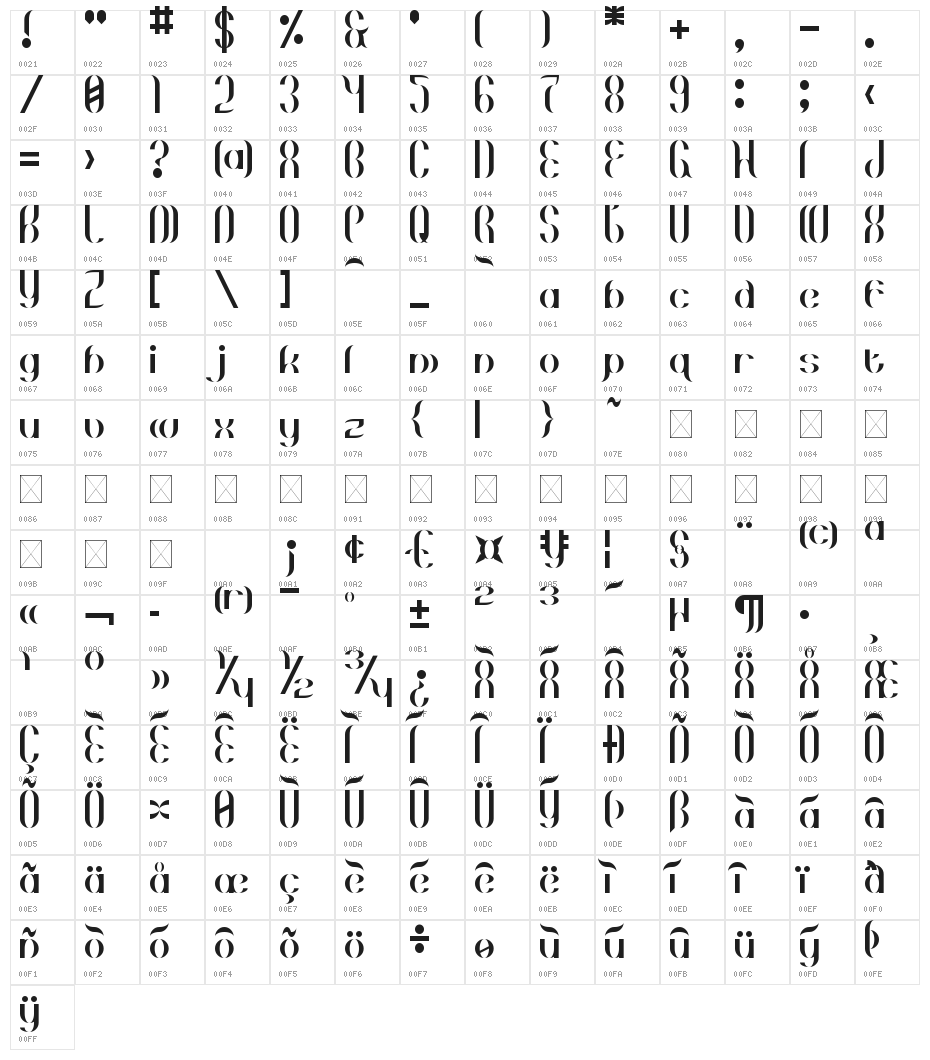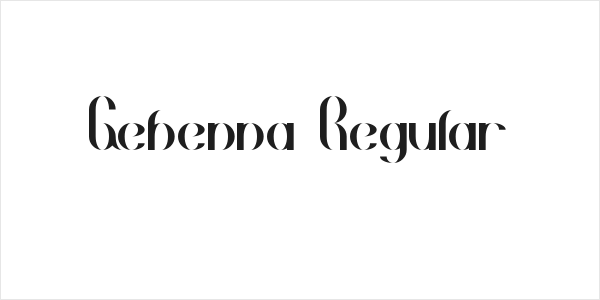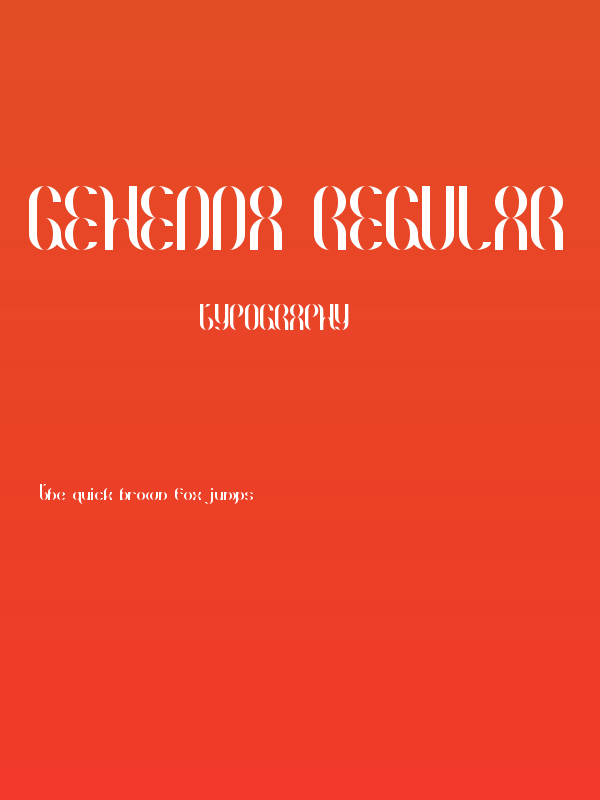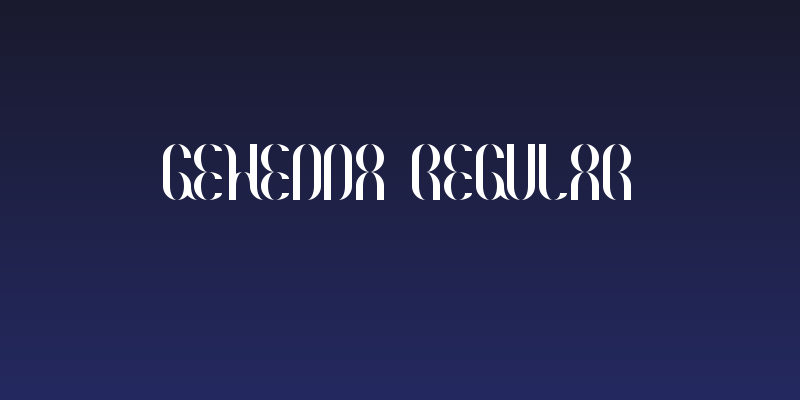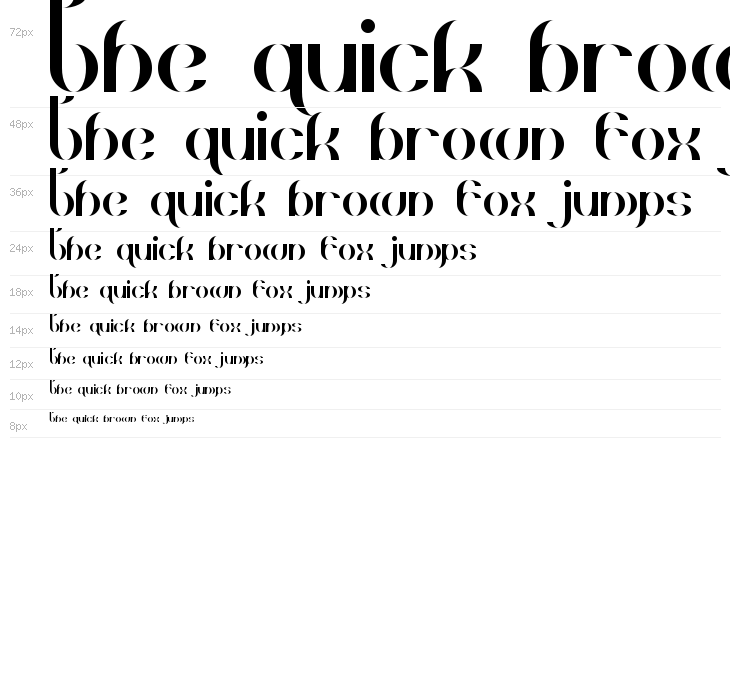
Gehenna Regular Font
Gehenna Regular Description
This font features a bold and striking design with high contrast between thick and thin strokes, creating a dramatic and eye-catching appearance. The characters are uniquely styled with a modern twist, incorporating sharp angles and curves that give it a distinct personality. The uppercase letters are particularly bold, while the lowercase letters maintain a consistent style, offering a cohesive look across the alphabet. The numerals and special characters follow the same design principles, ensuring uniformity throughout. This font's design is both artistic and functional, making it suitable for a variety of creative applications.